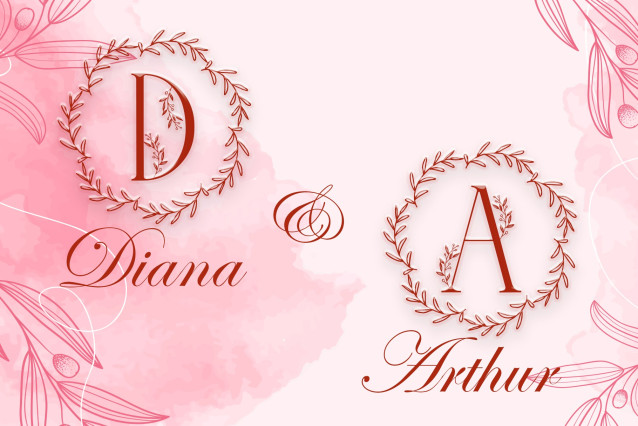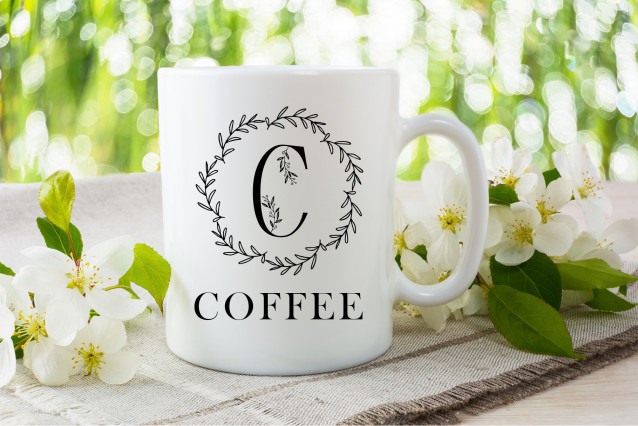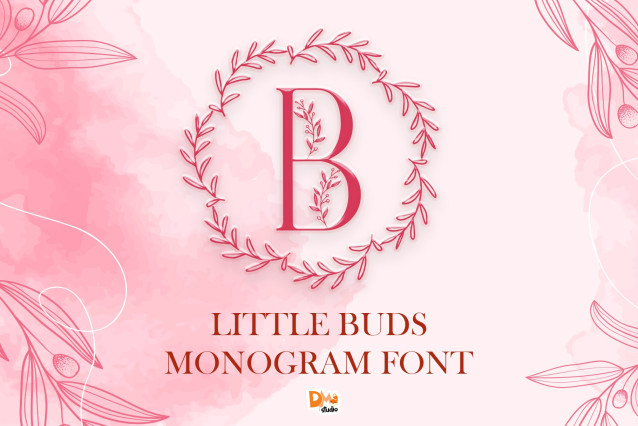
Little Buds Monogram Wreath Font
Little Buds Monogram Wreath is a beautifully styled font that captures the grace of budding flowers and elegant curves, perfect for monograms, personal branding, event materials, and seasonal designs. This font blends natural whimsy with gentle structure, making it ideal for baby showers, weddings, feminine products, and charming DIY crafts.